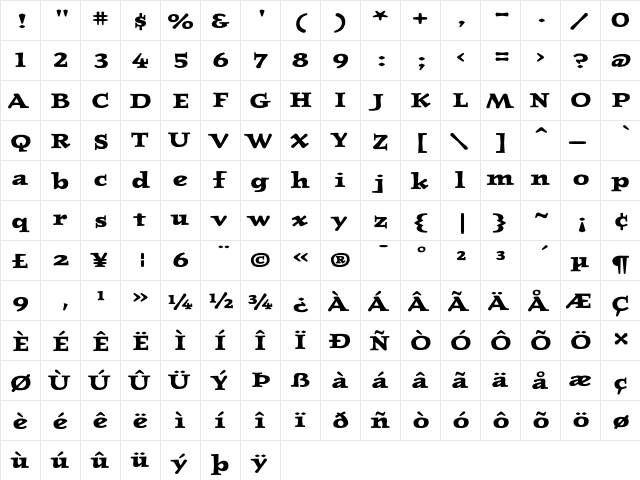
JournalUltraBoldLining Regular
Design Context for JournalUltraBoldLining Typeface
JournalUltraBoldLining is a composed and adaptable typeface that performs quietly and consistently across a wide range of design contexts. The heavy weight commands attention and anchors typographic hierarchies.